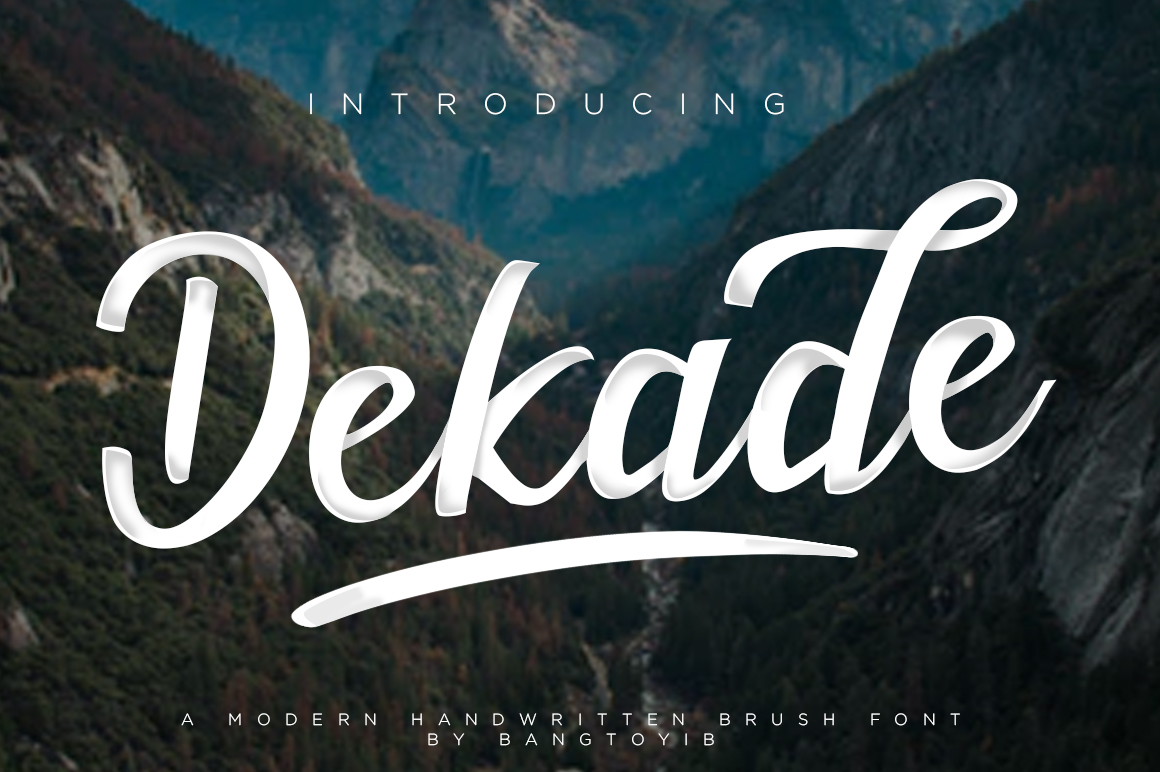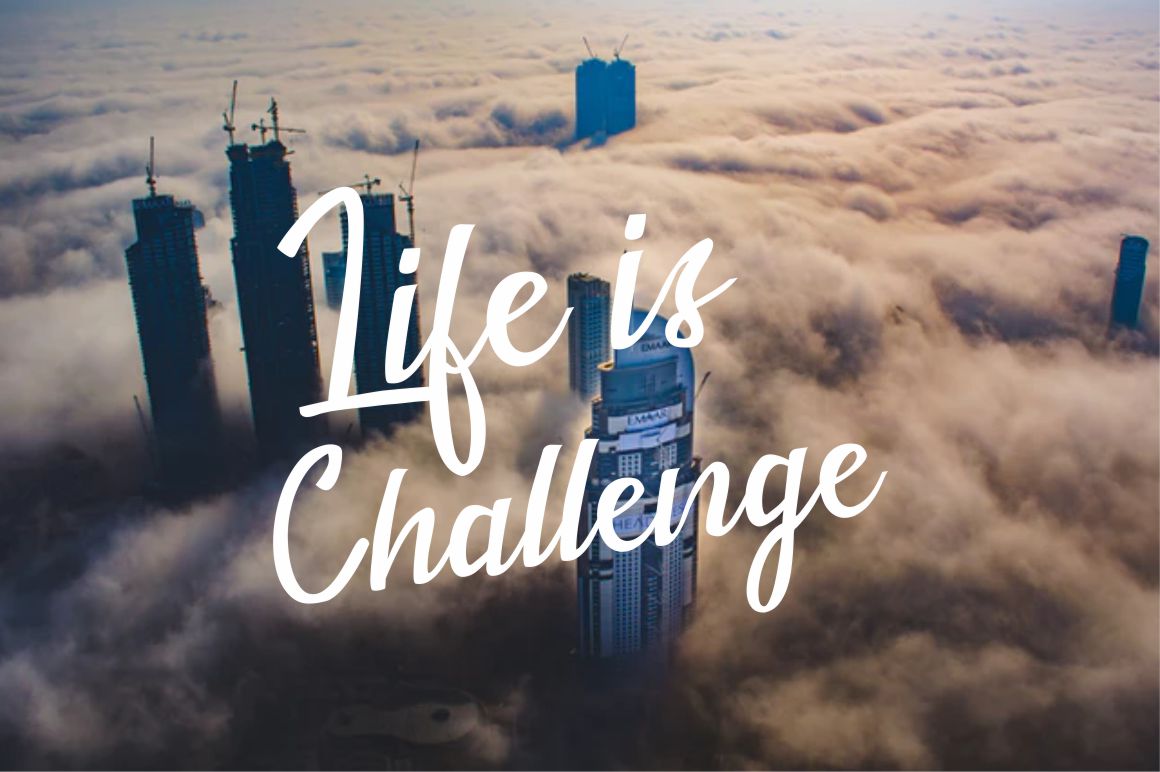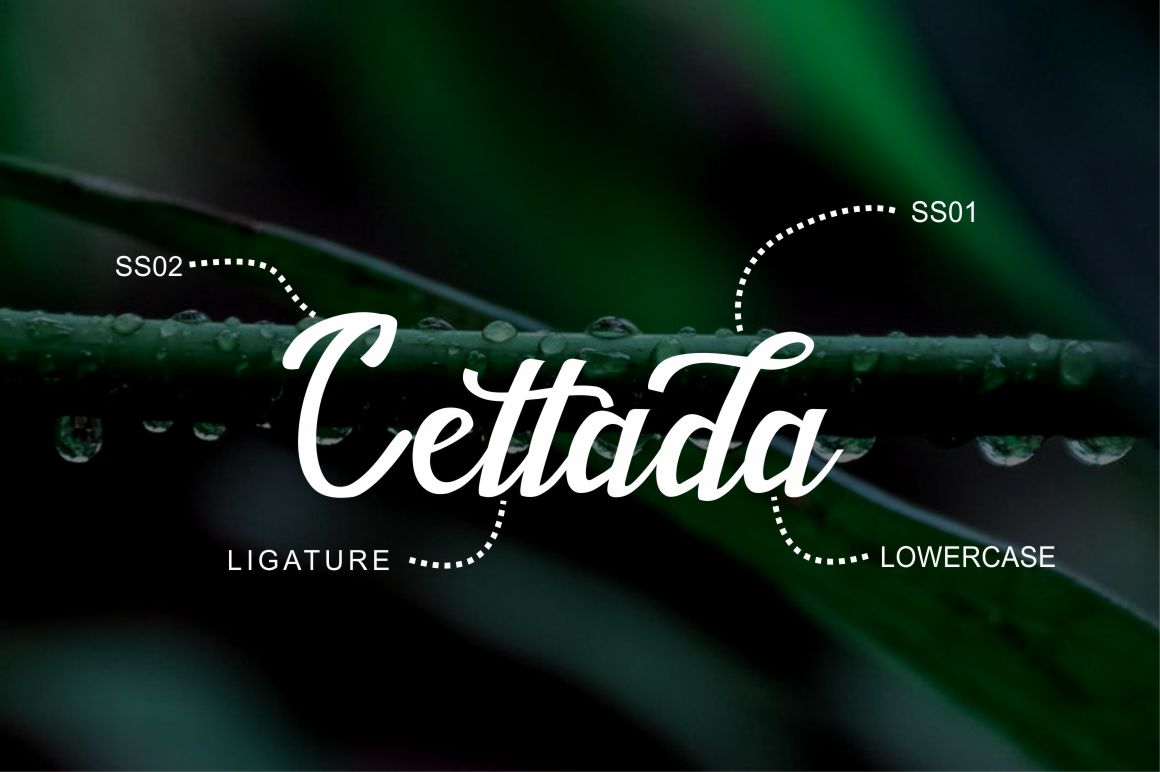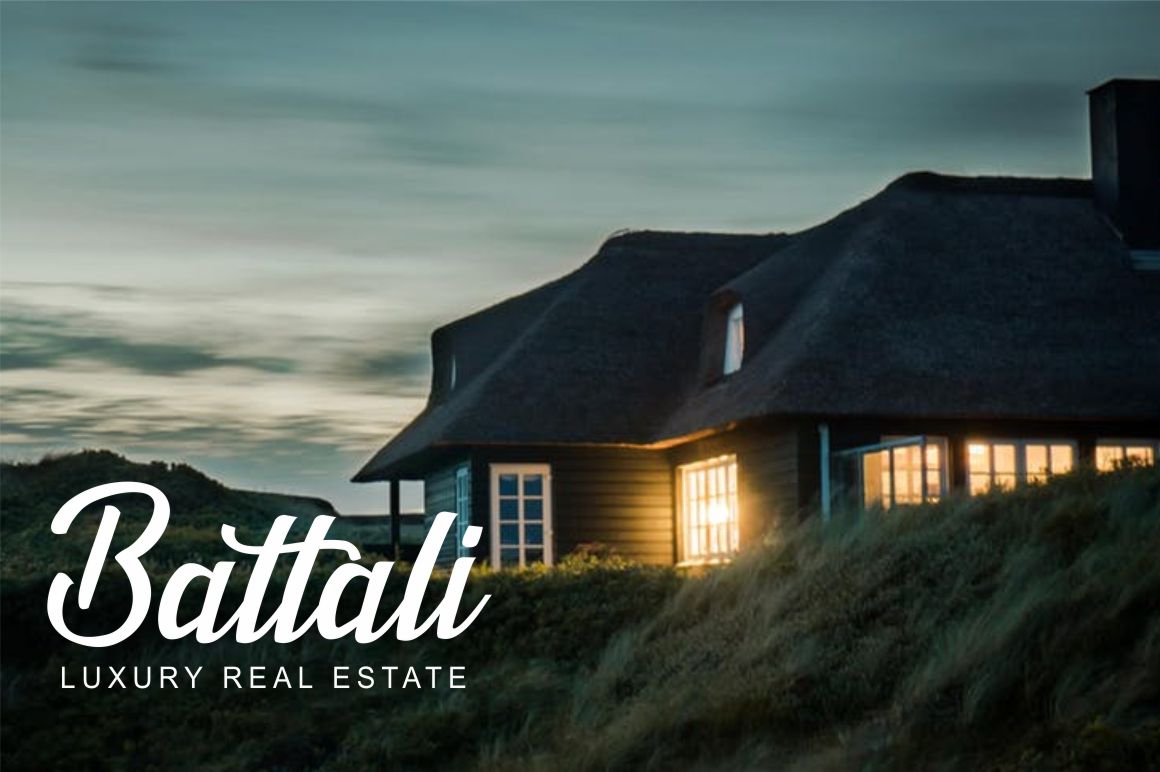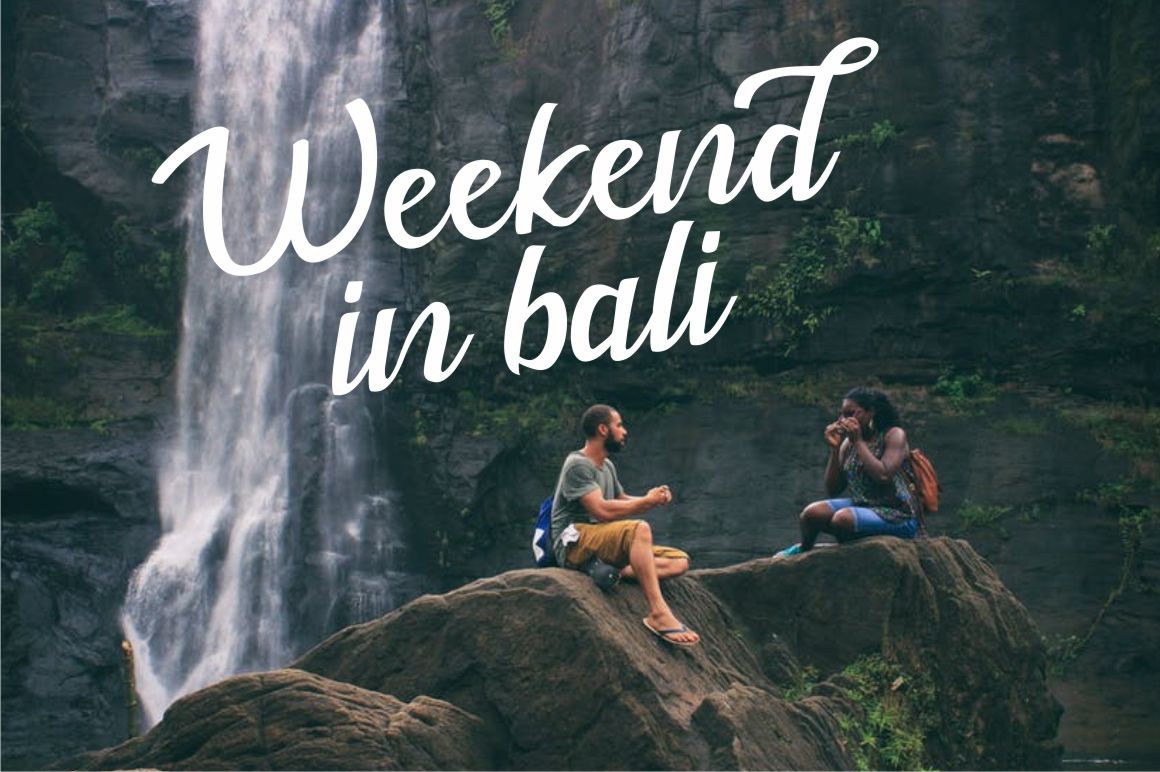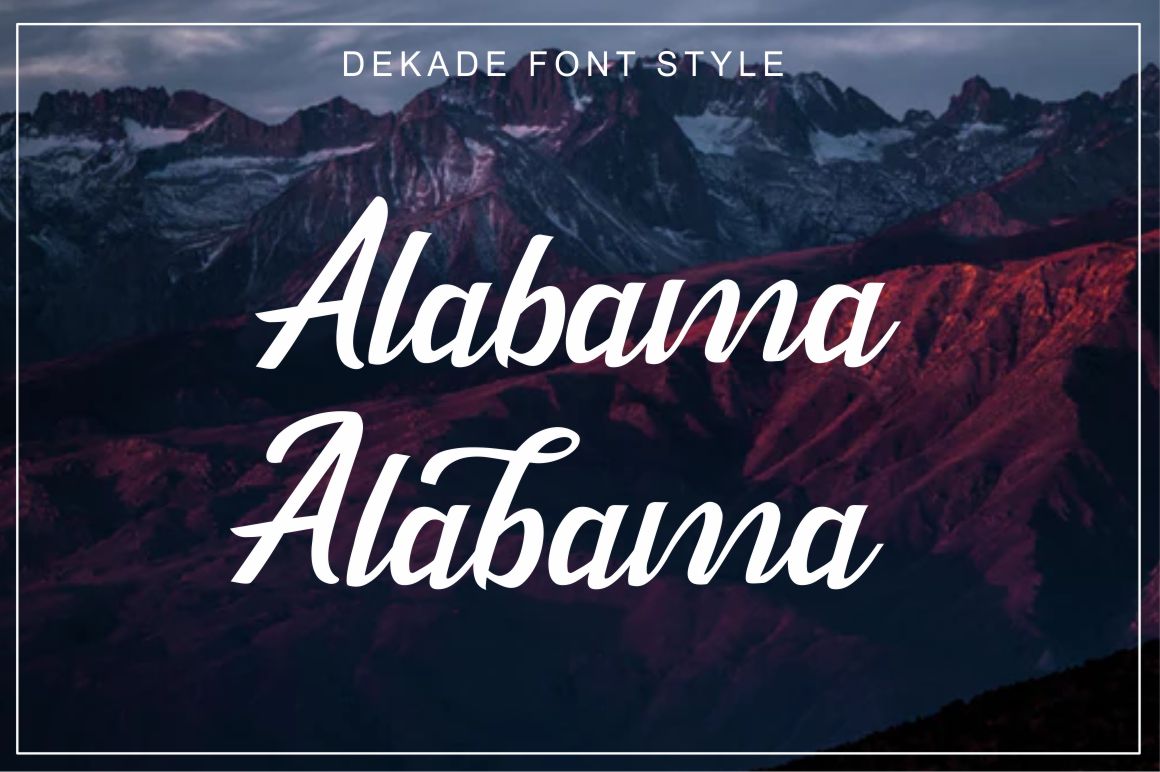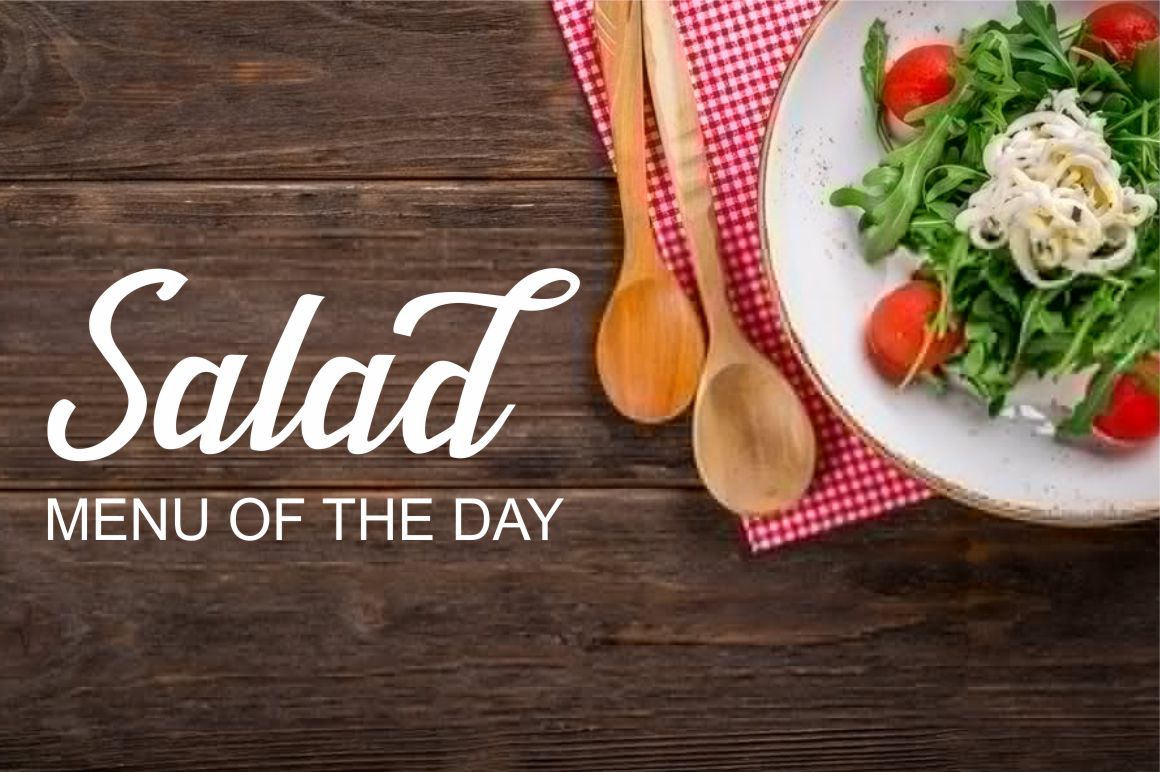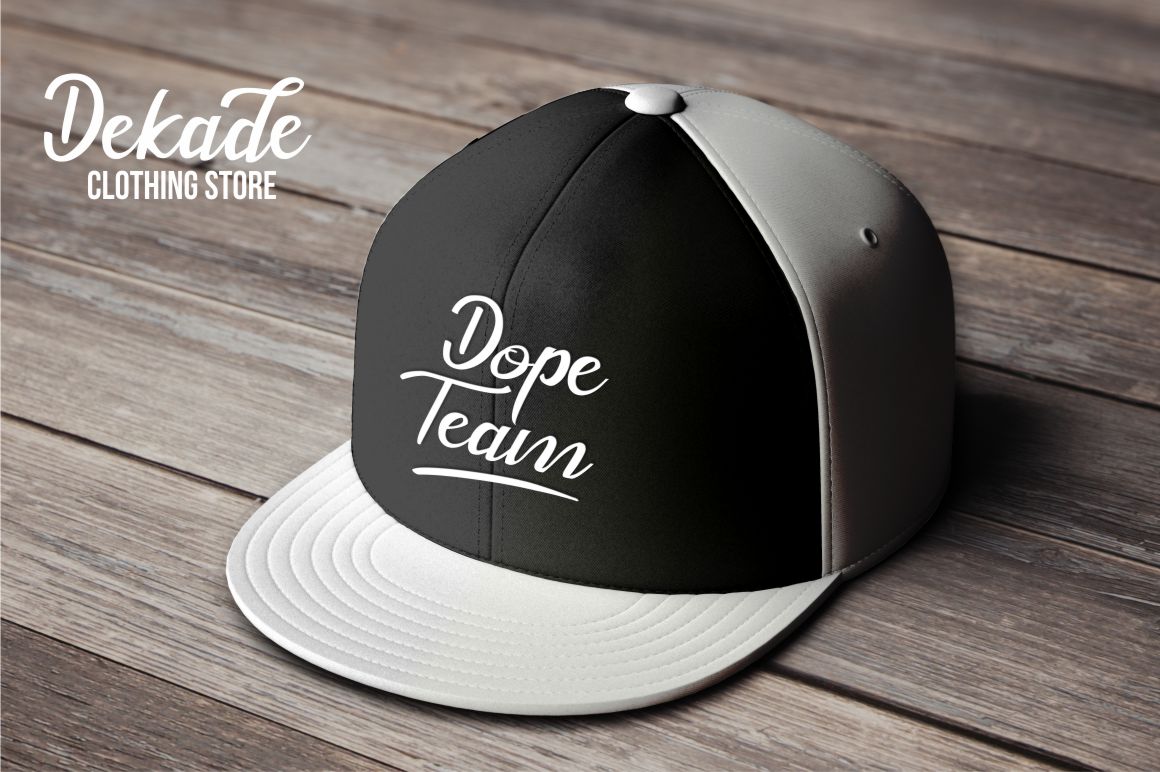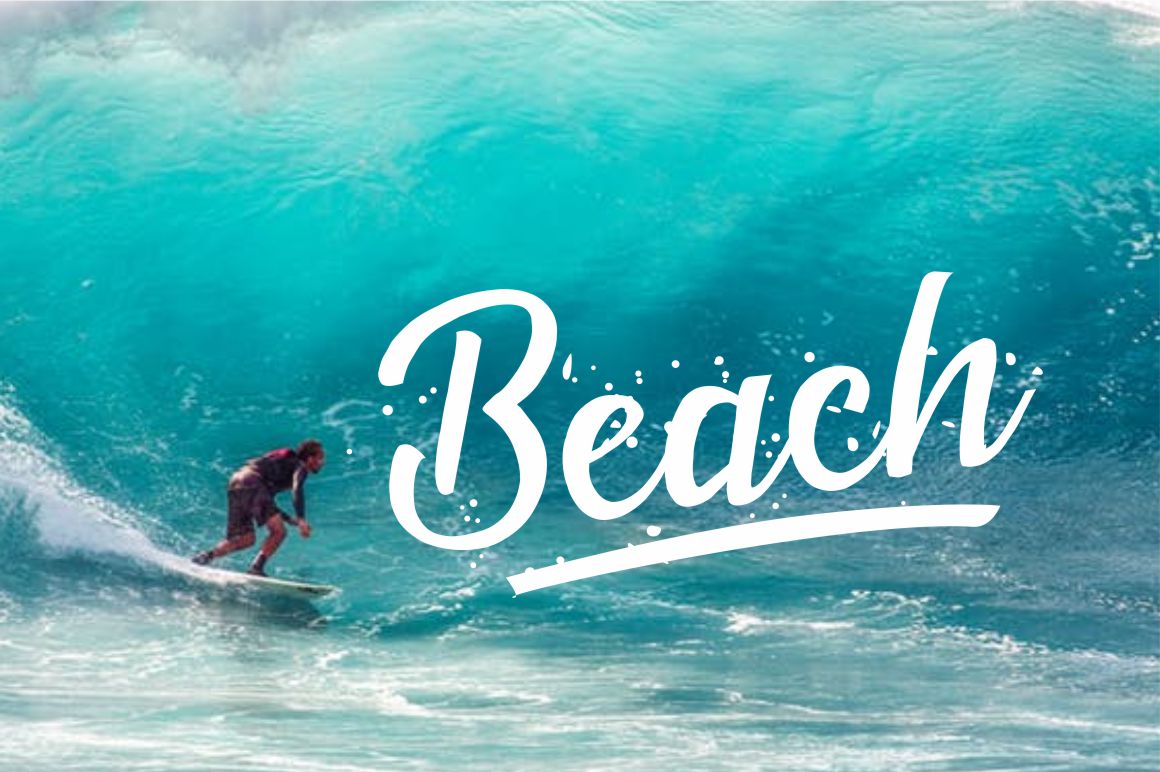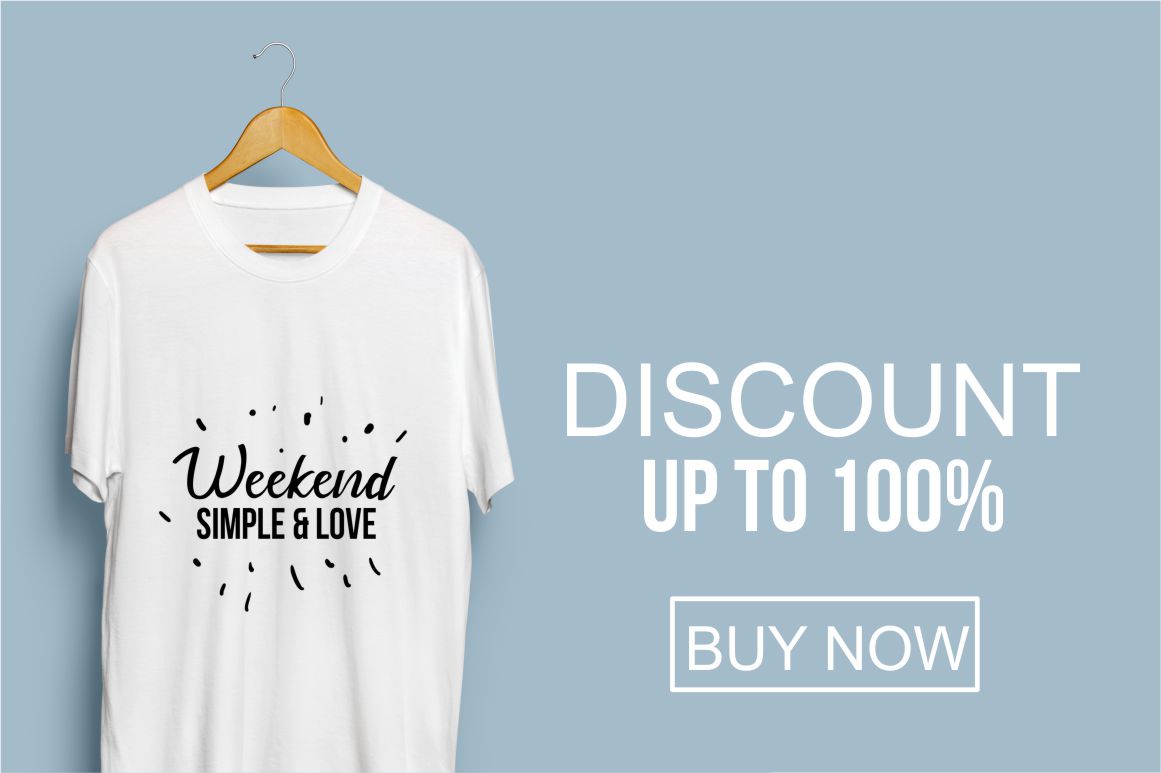
Dekade Brush Font is a free commercial font and a hand brush typeface, with authentic and modern style.
This font functions most strongly as a display or headline font. suitable for the logo, logotype, branding, wedding, fashion, label, book cover, t-shirt, Instagram post, and other